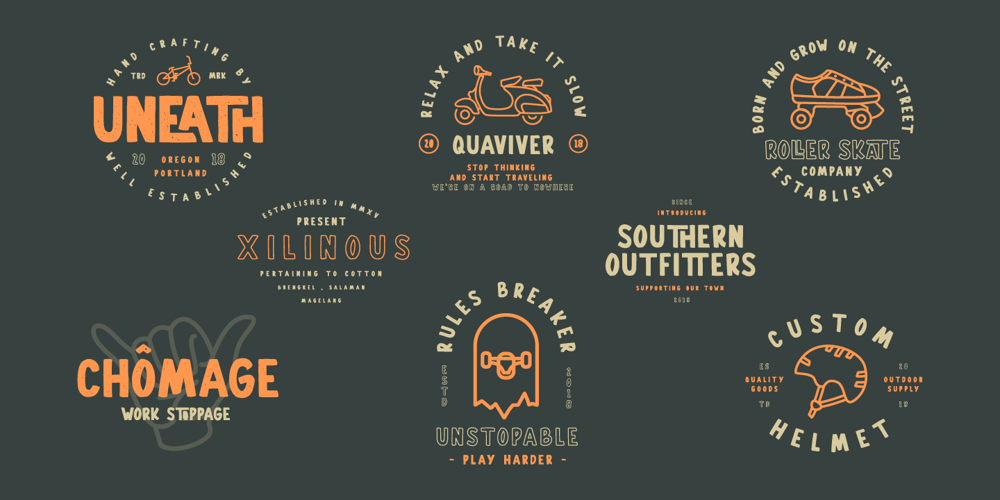
Gallicide Font Family was designed by Muhammad Hasan and published by MuSan. Gallicide contains 3 styles and family package options. Gallicide is a Handmade Modern Vintage Textured Display Typefaces. This fonts is combining the style of modern handwritten style and classic vintage looks. It comes with 3 Styles (Rough, Reglar and Outline). This font will look good on any retro design like poster, t-shirt, label, logo etc.